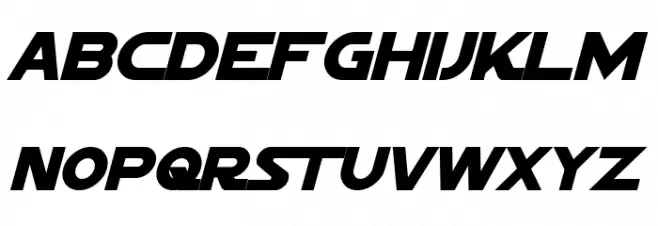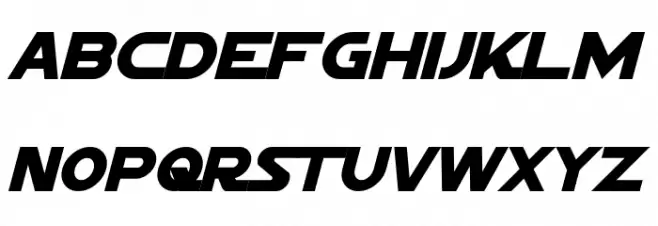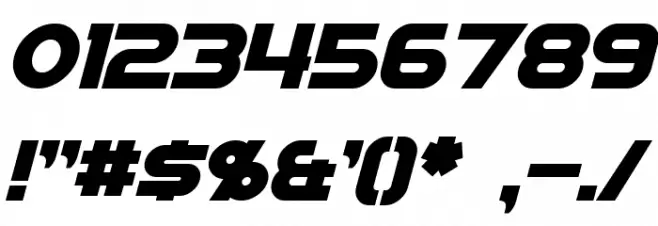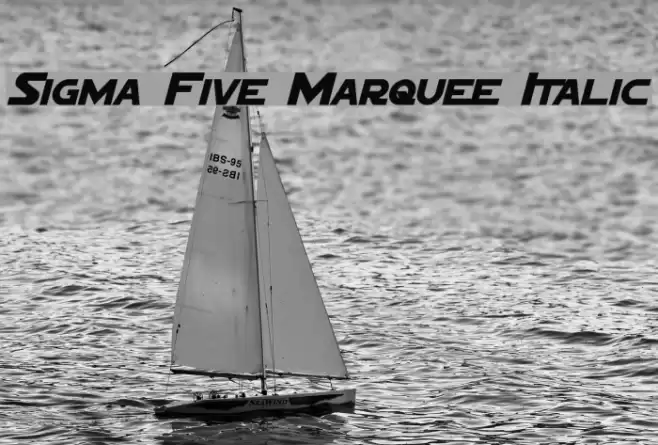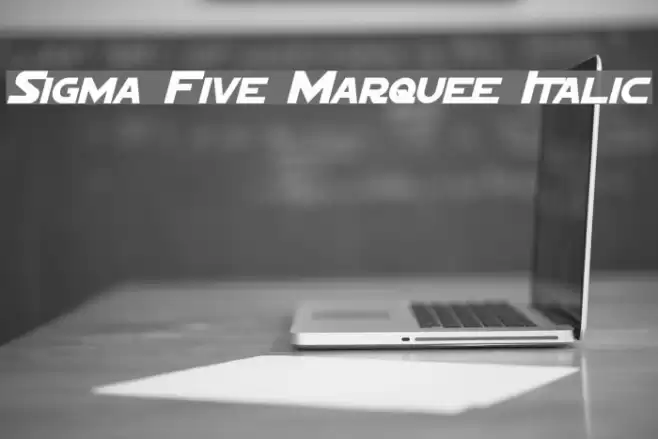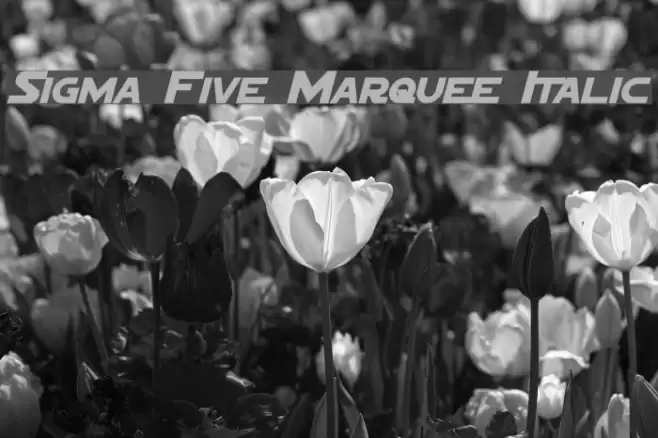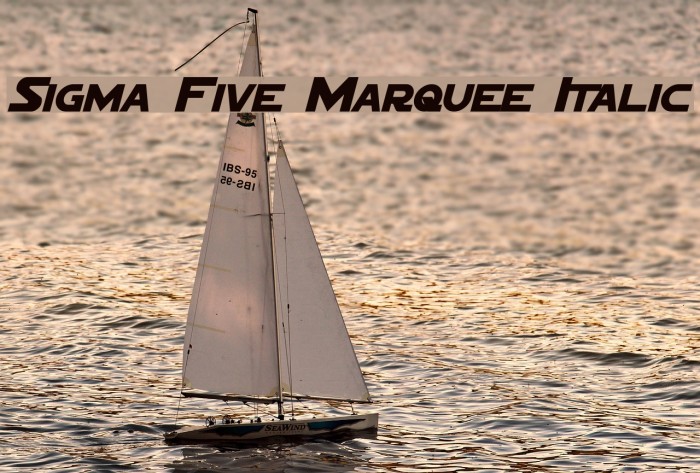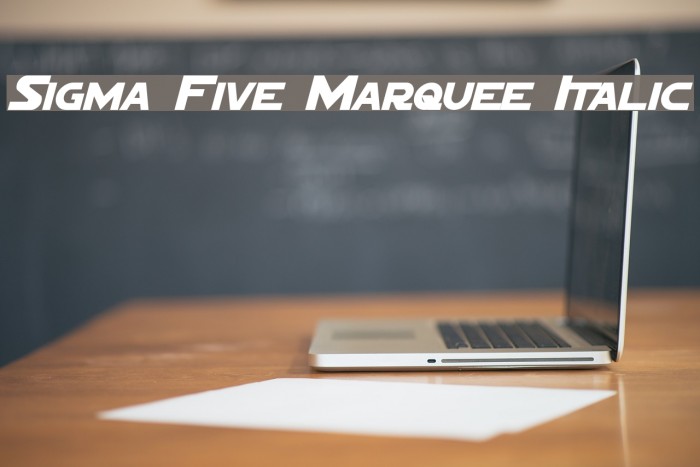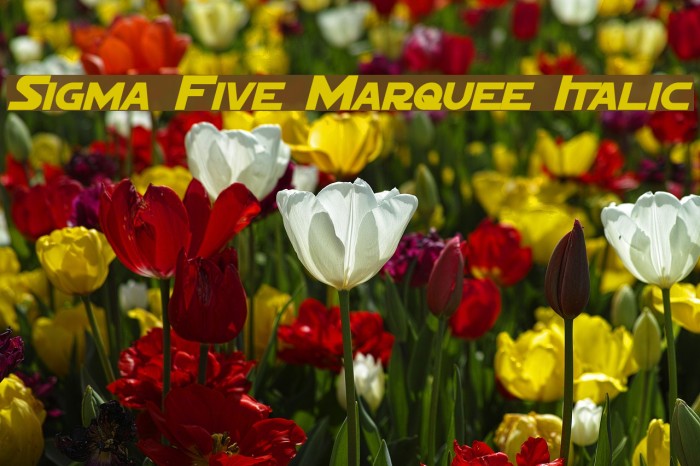
Sigma Five Marquee Italic
This font features a bold and dynamic italic style, characterized by its strong geometric shapes and sharp angles. The letters are slightly slanted, giving a sense of motion and speed, which is further emphasized by the thick, consistent stroke weight. The font maintains a modern and futuristic aesthetic, making it suitable for projects that require a sense of innovation and forward-thinking. The character spacing is tight, enhancing the compact and cohesive look of the text. The high contrast between the thick strokes and the negative space ensures excellent readability, even at smaller sizes.
A bold, italic font with a modern, dynamic style and high contrast.
- Proposed Projects: Ideal for technology branding, sports team logos, automotive advertising, and futuristic design projects.
- Character Spacing: Tight
- Contrast: High
- Use Case: Logos, Headlines, Branding